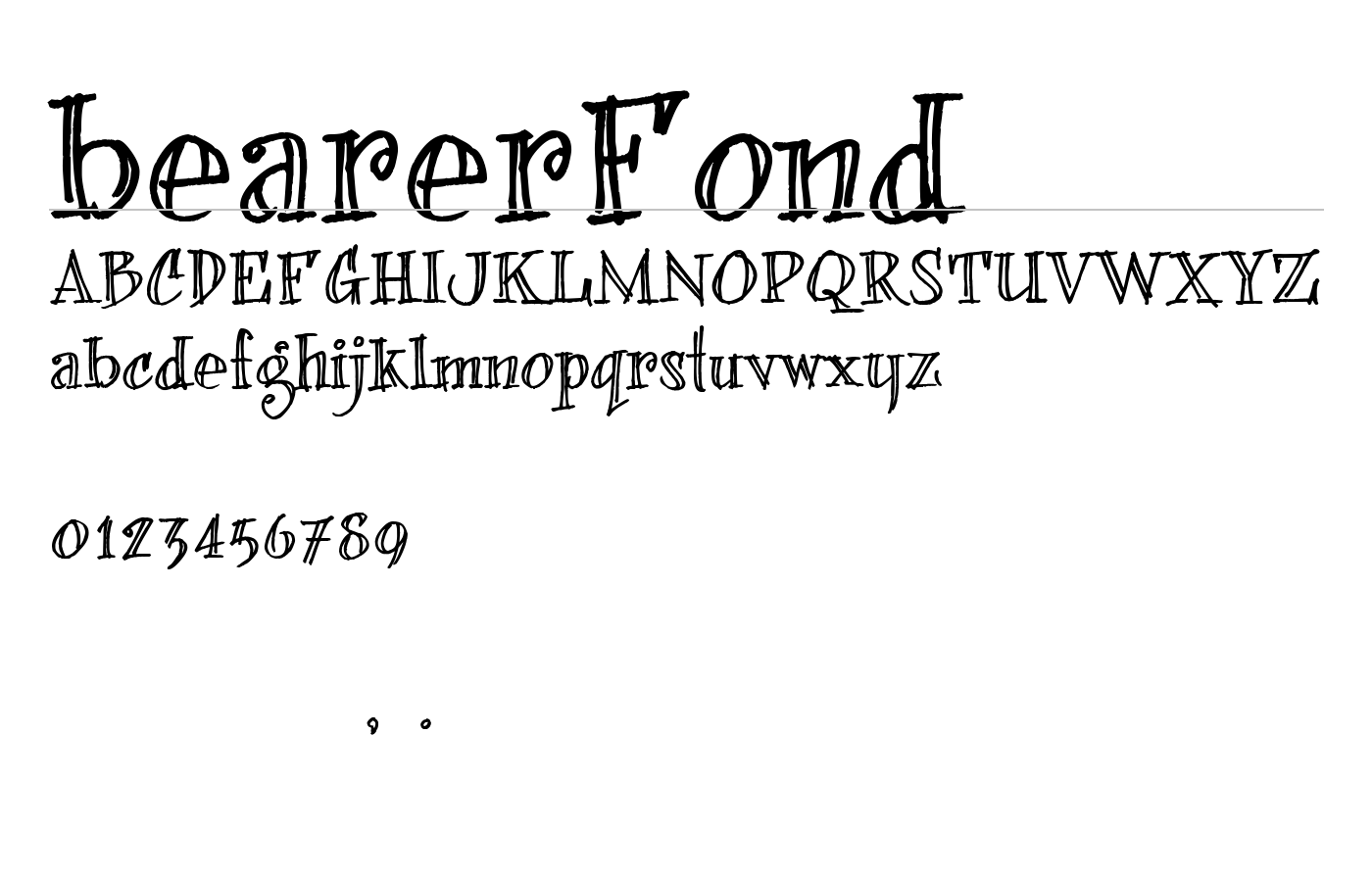
BearerFond is a quirky serif font with a hand-drawn, slightly irregular style that gives it a playful and artistic character. Its tall, narrow letterforms feature uneven strokes and whimsical details, making it ideal for creative projects, informal invitations, or headlines that want to stand out with a unique, handcrafted feel. This font works best where personality and charm are key, bringing a distinctive, expressive touch to branding, posters, and creative editorial designs.
bearerFond Font
About bearerFond Font
| Font family | bearerFond Font |
| Designer | JJW van der Ham - J O E B O B graphics |